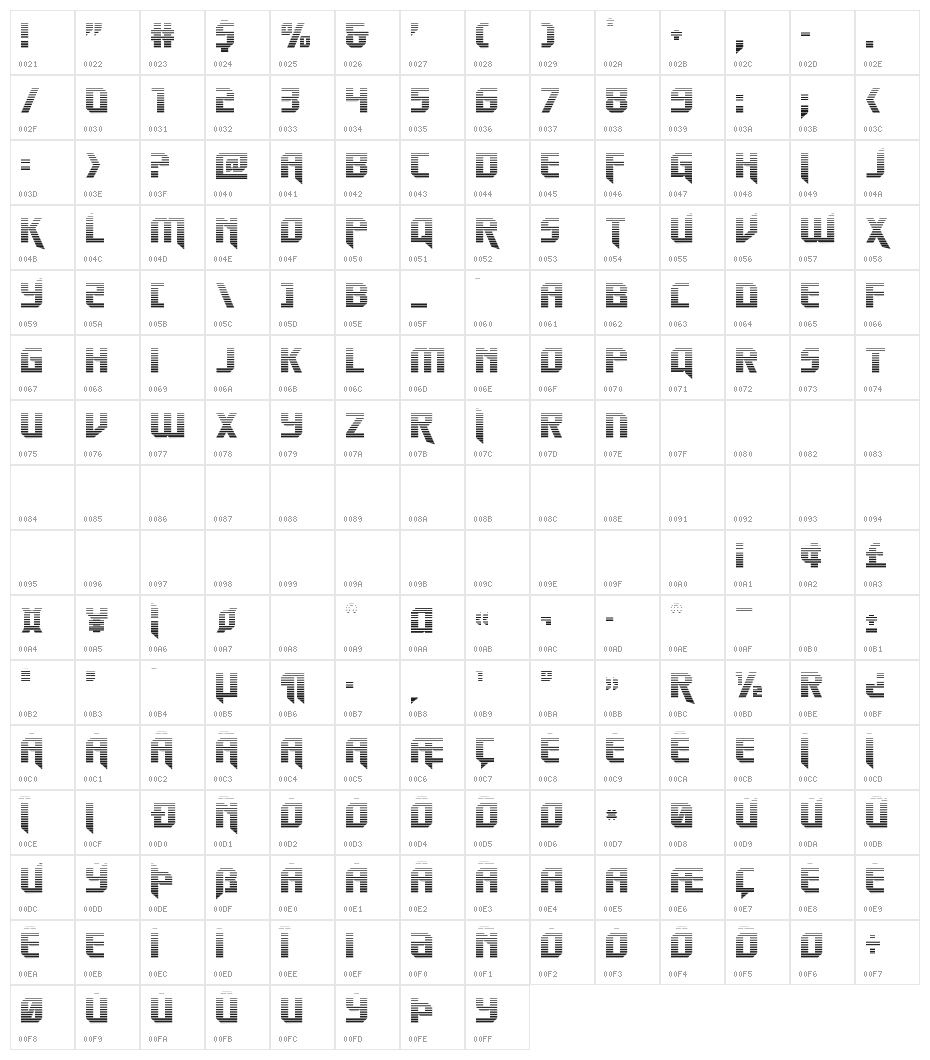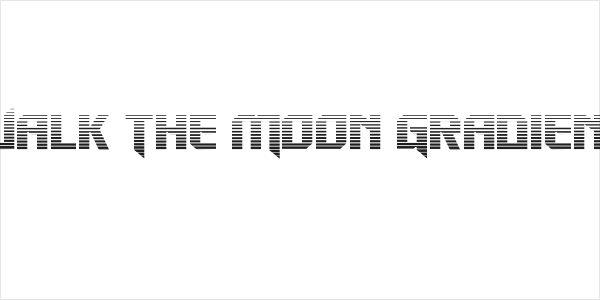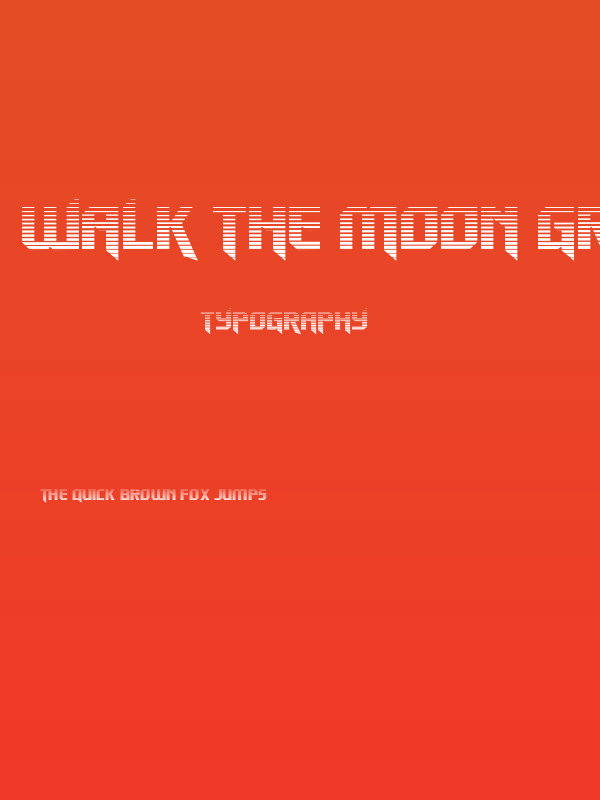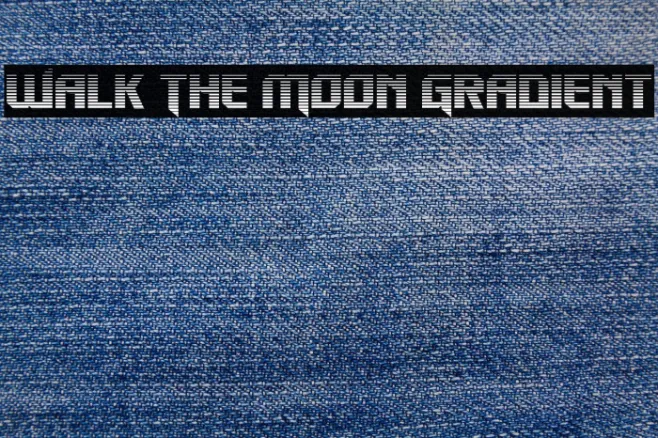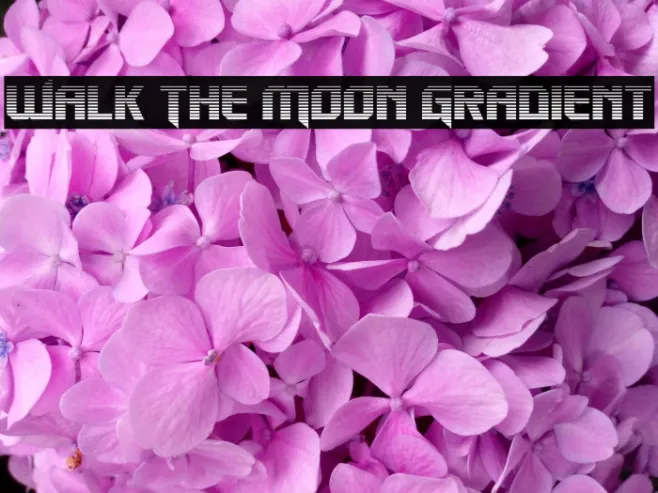
Walk The Moon Gradient Font
Walk The Moon Gradient Description
This font features a bold, geometric design with a distinctive striped pattern that gives it a futuristic and dynamic appearance. The characters are constructed with horizontal lines, creating a sense of movement and energy. The angular and sharp edges of the letters contribute to its modern aesthetic, making it stand out in any design. The uppercase and lowercase letters maintain a consistent style, while the numerals and special characters complement the overall look. This font is ideal for projects that require a bold and eye-catching typeface.
| Proposed Projects | Ideal for posters, album covers, video game graphics, and branding that requires a modern and dynamic look. |